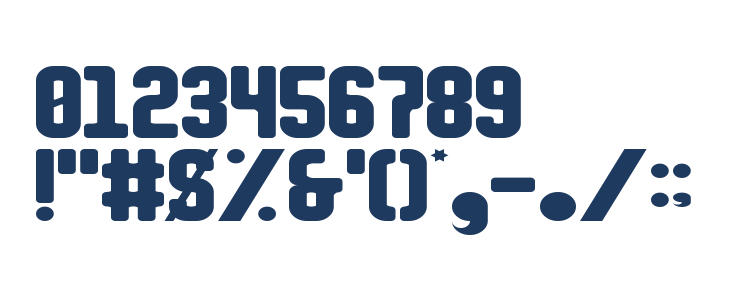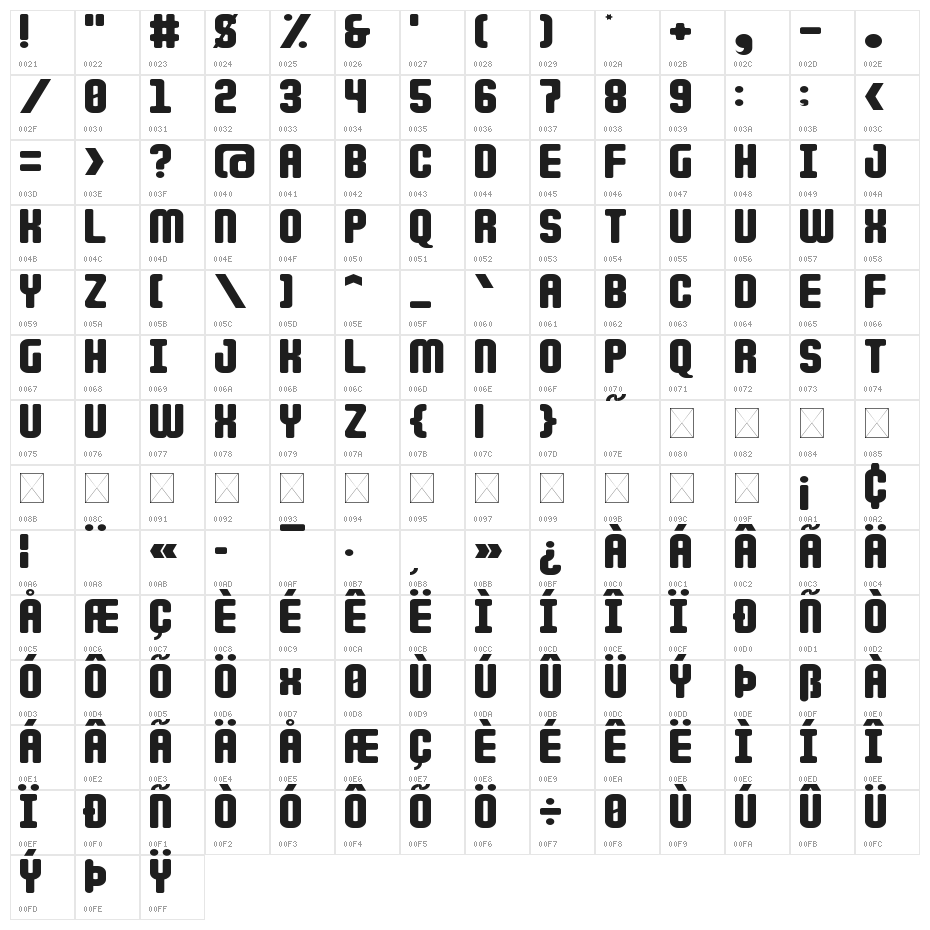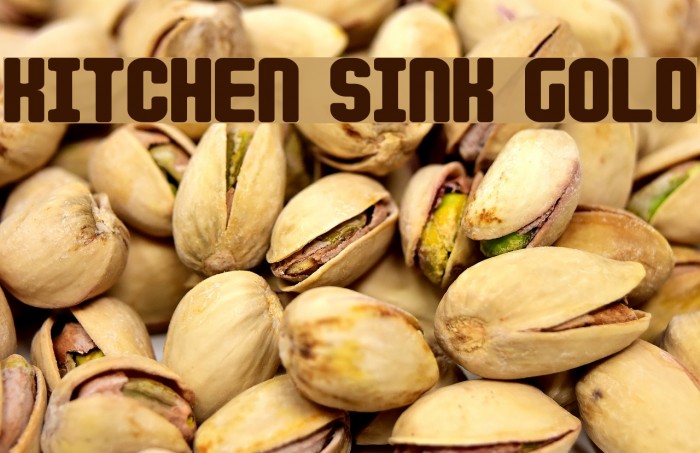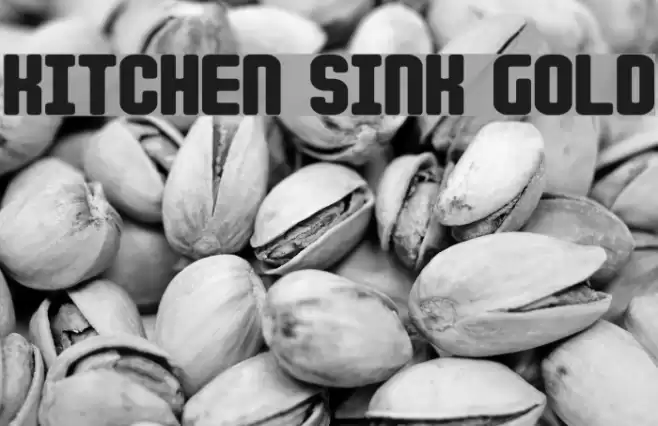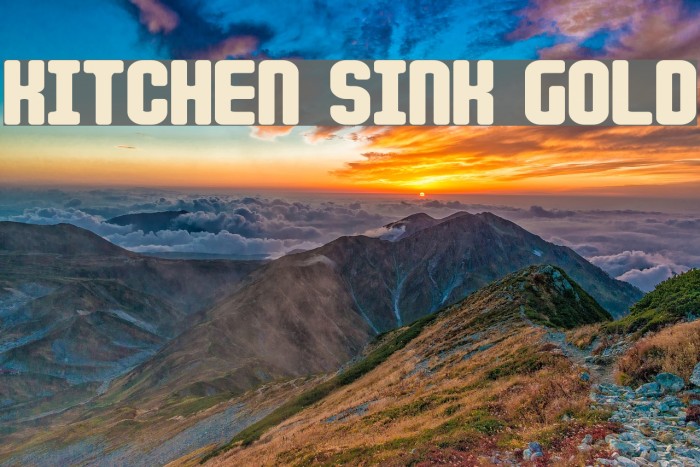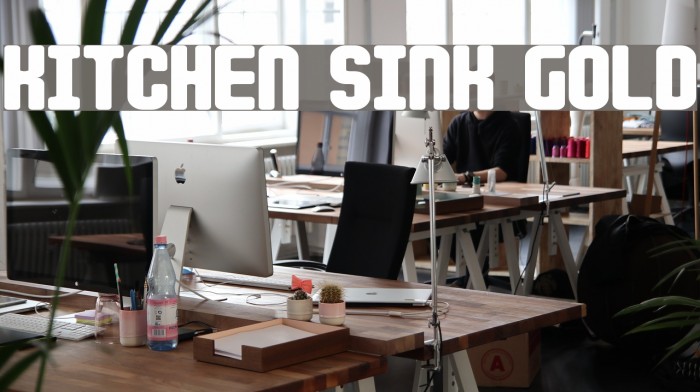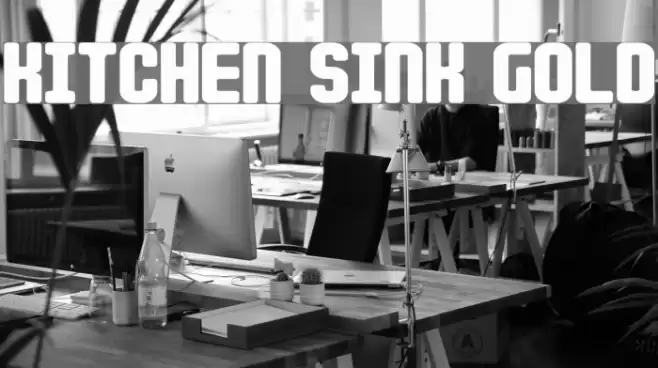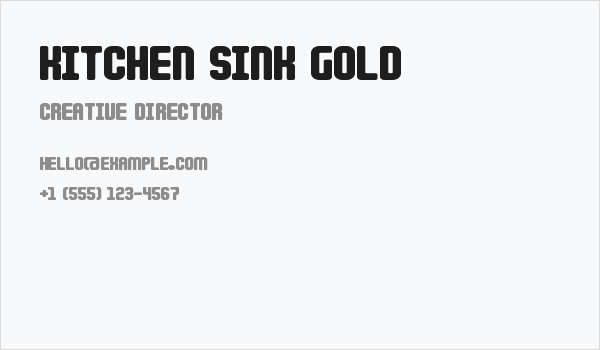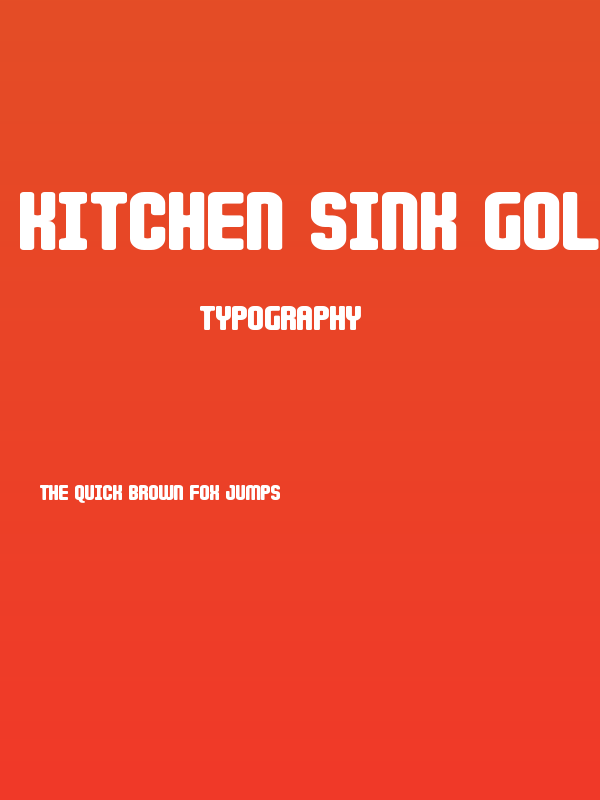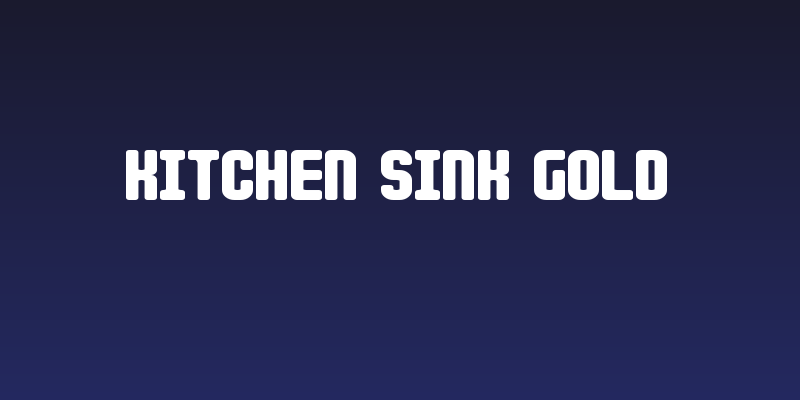
Kitchen Sink Gold Font
Kitchen Sink Gold Description
This font features bold, rounded characters with a strong presence, making it ideal for attention-grabbing designs. The uppercase letters are uniform in height, while the lowercase letters maintain a consistent style with slightly softer curves. Numbers and special characters are designed to match the boldness of the alphabet, ensuring a cohesive look across all text. The font's thick strokes and rounded edges give it a playful yet assertive appearance, suitable for various creative applications.
| Proposed Projects | Ideal for posters, logos, branding materials, and headlines where a strong visual impact is desired. |